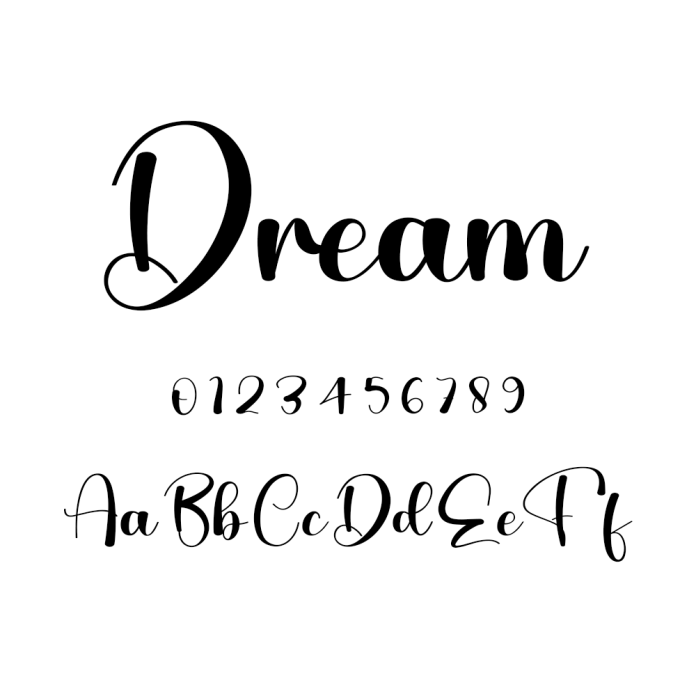
Dream Script Font is a graceful, modern calligraphic font. With its beautiful rhythm, this font will help you create gorgeous and classy compositions. Use it for branding projects, invitations, web graphics, cards, and many more!